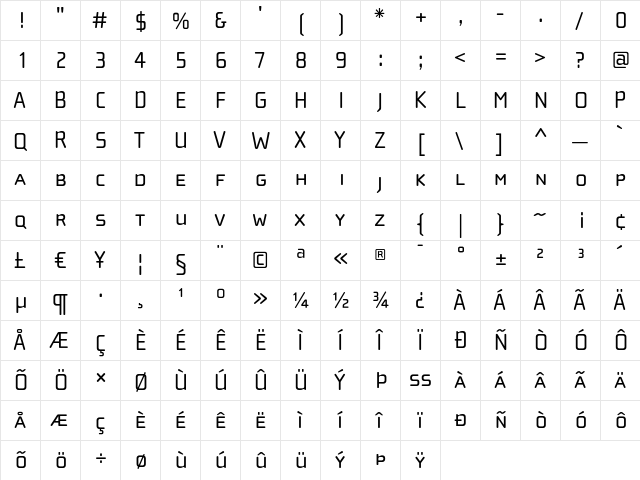
ChollaWideSmallCaps Roman
Design Context for ChollaWideSmallCaps Typeface
ChollaWideSmallCaps takes a measured approach to typography — its balanced proportions and neutral character make it a reliable workhorse for both digital and print work.